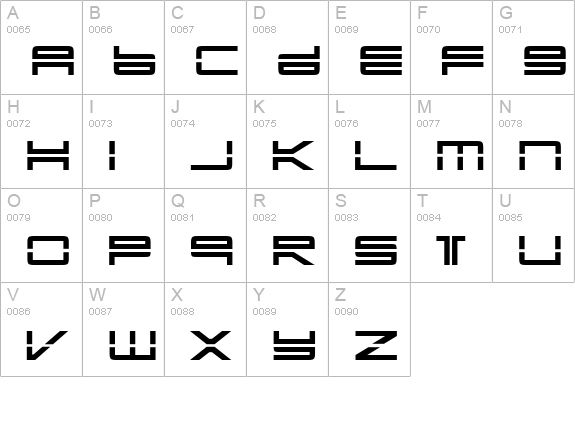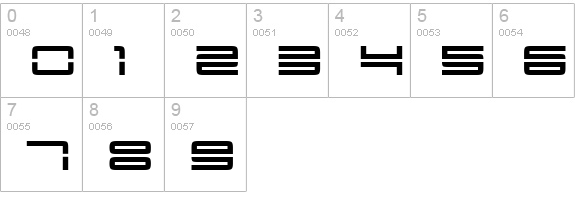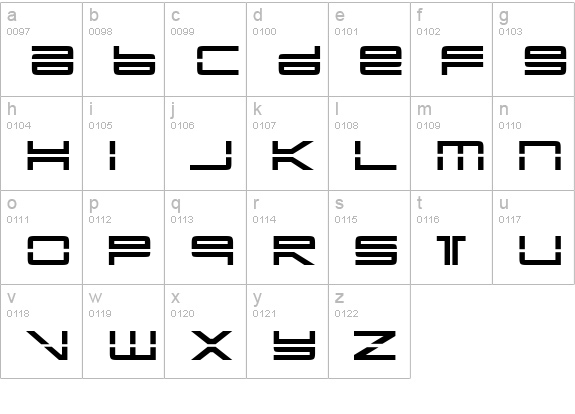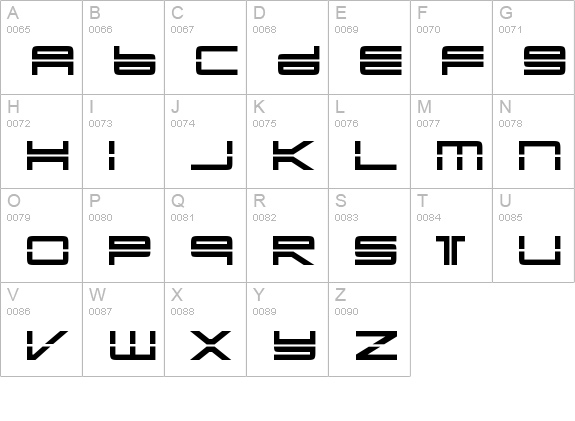
Yonder Recoil Font Details
Yonder Recoil font is a stunning display typeface that exudes a sense of modernity and sophistication. With its sleek lines and elegant curves, this font is perfect for adding a touch of refinement to any design project. The unique letterforms of Yonder Recoil font will make your text stand out and capture the attention of your audience. What makes Yonder Recoil font even more appealing is that it is free to download at FontsMarket.com. This means that you can easily access this beautiful typeface and use it in your personal and commercial projects without any cost. Whether you're working on branding, advertising, or any other creative endeavor, Yonder Recoil font is sure to elevate your designs and make them truly memorable. Download it now and let your creativity soar with this stunning and versatile font.